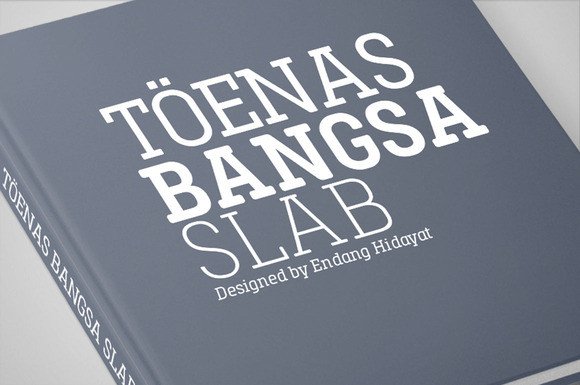
TOENAS BANGSA FONT SPECIMEN
Toenas Bangsa Slab is a clean rounded slab serif font. Uses clean lines and smooth round curves. It is combined from an old slab serif style and modern clean fonts. Looks simple, elegant, and readable. Toenas Bangsa Slab is made up of 6 styles, which go from Light to Bold plus beautiful italic. Good choice for your logotypes, headlines, print applications, quotations, and short texts.